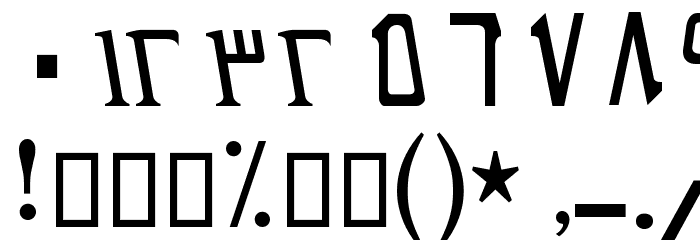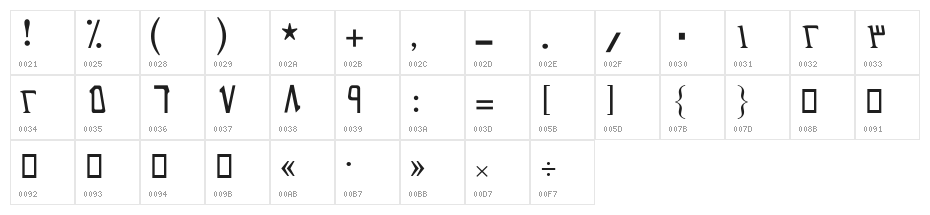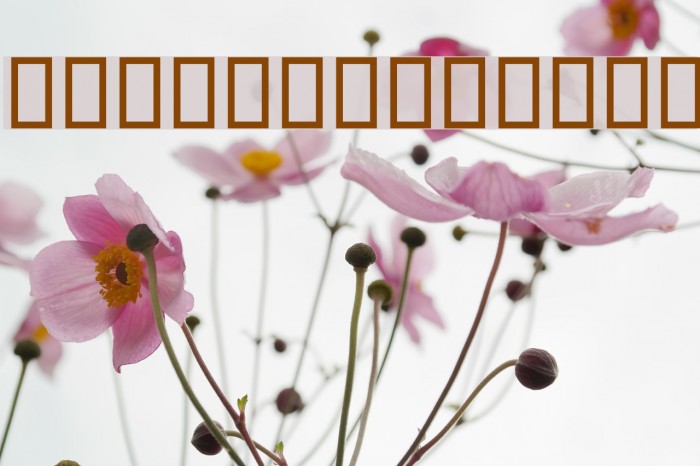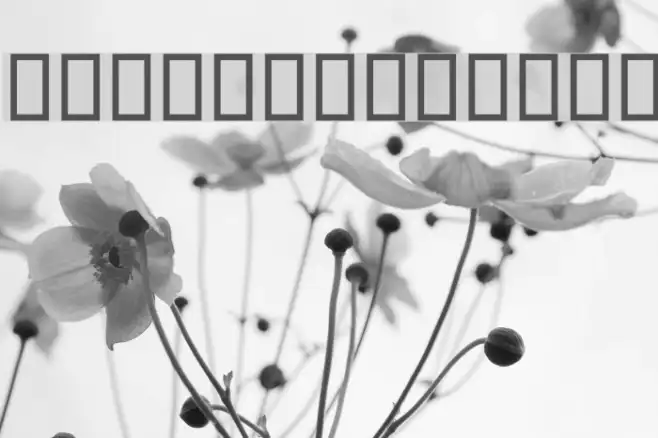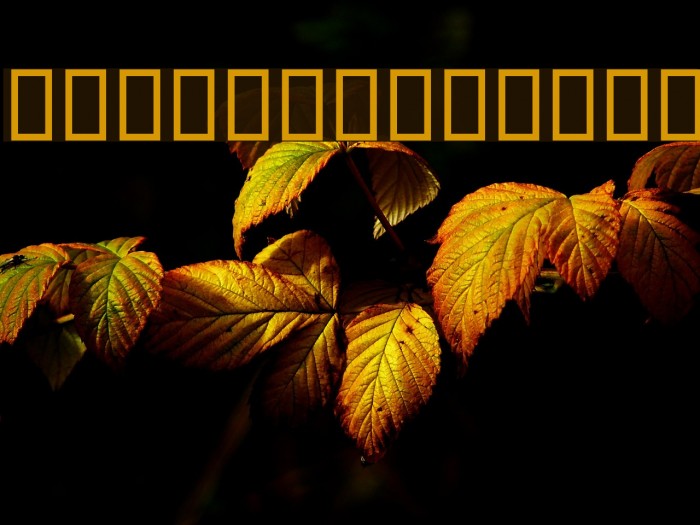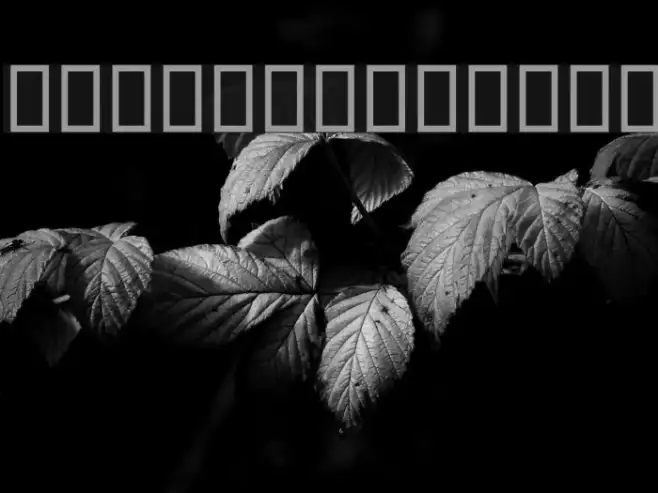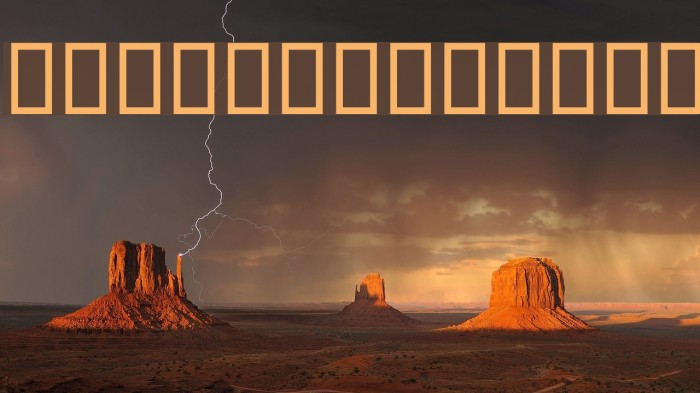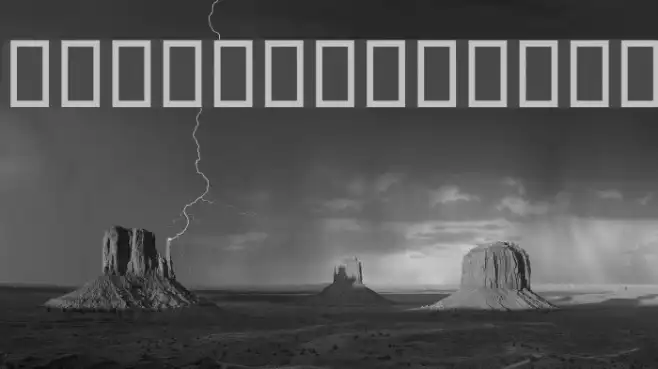
Nedaa Font
Nedaa Description
This font features a bold and angular design with a distinct geometric style. The characters are constructed with sharp edges and a consistent stroke width, giving it a modern and futuristic appearance. The numerals and special characters maintain the same angular aesthetic, ensuring uniformity across all glyphs. The font's unique style makes it stand out, with a strong emphasis on clarity and readability. Its boldness and geometric form make it suitable for impactful designs where attention is key.
| Proposed Projects | Ideal for branding, posters, headlines, and digital interfaces where a modern and striking appearance is desired. |